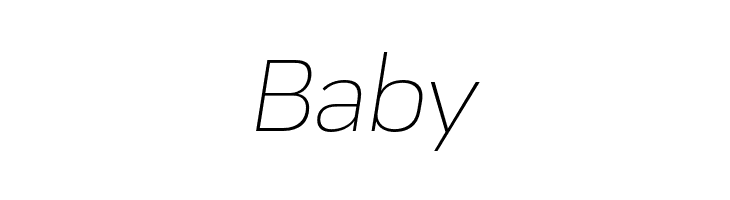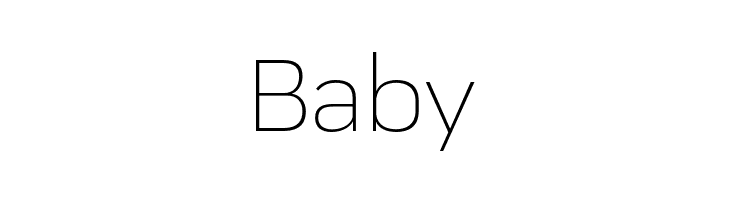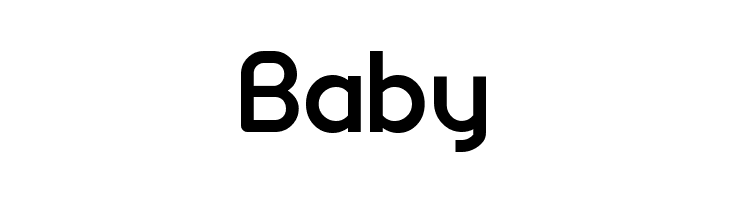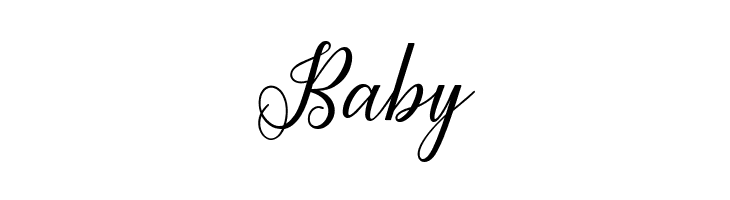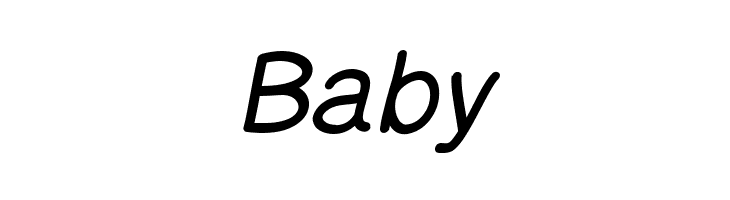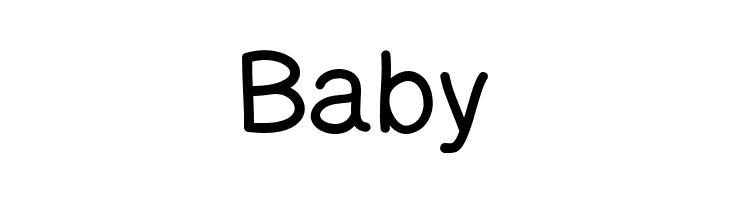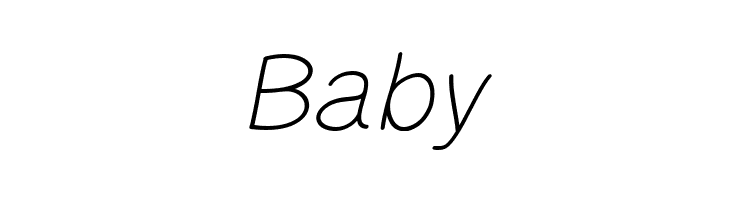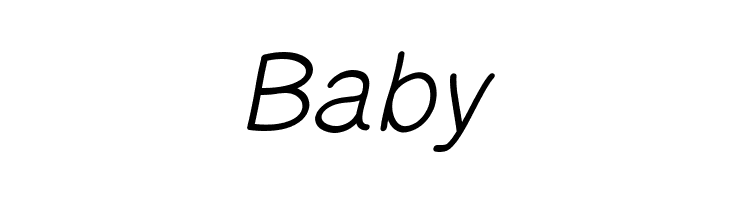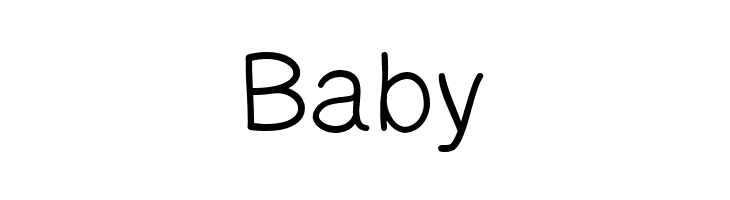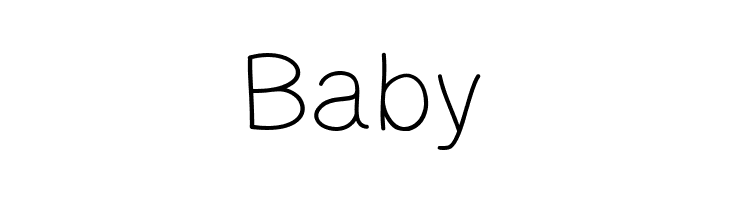
A modern, light sans-serif font with a clean and minimalist design.
A modern, light sans-serif font with geometric structure and balanced spacing.
A sleek, modern, light italic sans-serif font with elegant slanted characters.
A bold, elegant script font with flowing, decorative strokes.
An elegant script font with flowing, cursive style and graceful swashes.
A bold, distressed font with a vintage letterpress style.
A modern, geometric sans-serif font with smooth, rounded edges.
A bold, modern sans-serif font with clean, rounded edges and uniform stroke width.
A bold, italic font with smooth curves and a modern, dynamic style.
A sleek, modern italic font with smooth curves and consistent stroke width.
A sleek, modern font with clean lines and a minimalist aesthetic.
A sleek, modern, and light italic font with elegant elongated characters.
A modern, geometric font with a clean and sophisticated design.
An elegant script font with ornate, flowing characters and intricate flourishes.
An elegant script font with intricate loops and decorative flourishes.
A modern, tall, and narrow sans-serif font with a clean and professional look.
A modern, narrow sans-serif font with consistent stroke thickness and balanced spacing.
A modern, rounded sans-serif font with excellent readability.
A bold, italic, modern font with smooth curves and a dynamic slant.
A clean, minimalist font with uniform stroke width and rounded edges.
A sleek, light, and italic font with a modern and elegant style.
A clean, modern sans-serif font with medium weight and balanced spacing.
A sleek, modern italic font with a clean and elegant design.
A bold, flowing script font with a lively, handwritten style.
A modern, clean font with tall, narrow letters and a friendly appearance.
A sleek, handwritten italic font with elongated characters and consistent stroke width.
A bold, geometric font with a modern and decorative style.
A futuristic, geometric font with a 3D outline effect, perfect for tech themes.